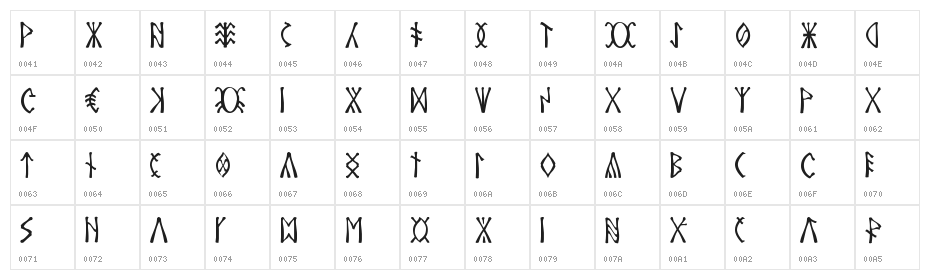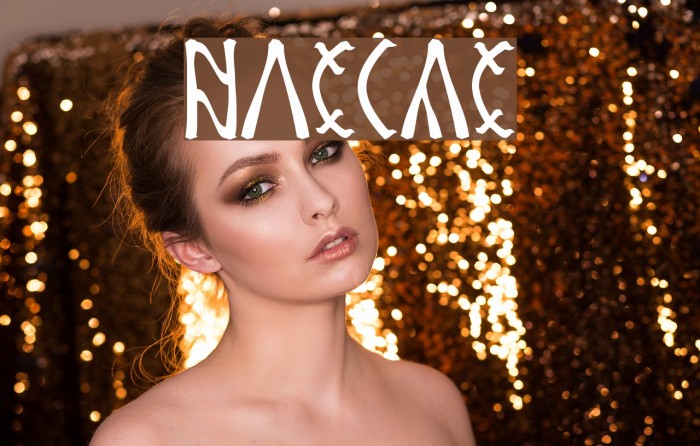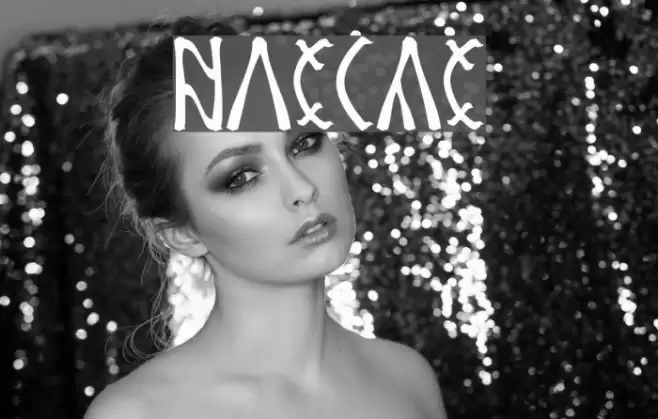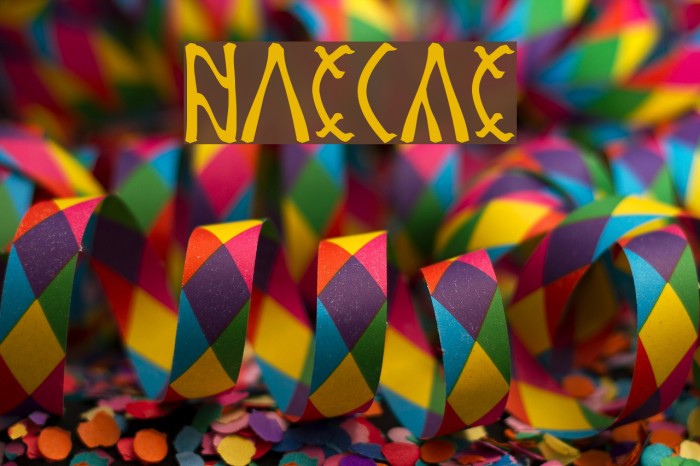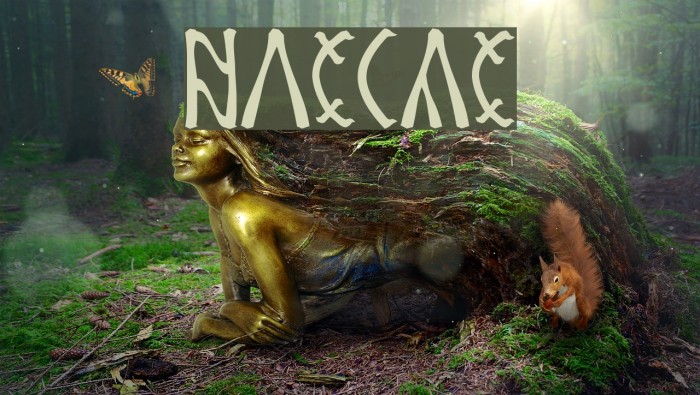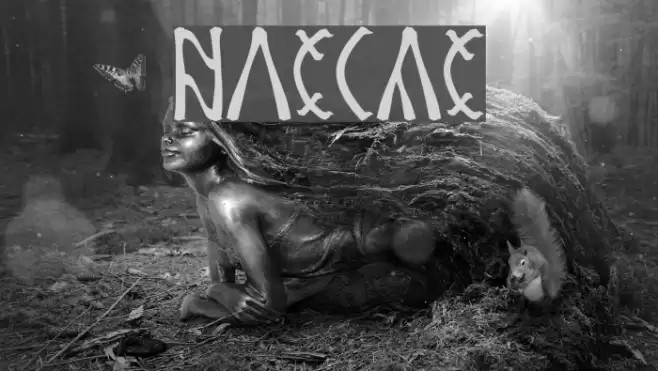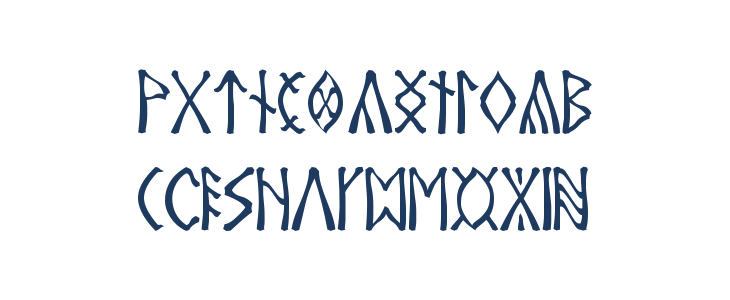
Csenge Font
Csenge Description
This font features a unique and intricate design reminiscent of ancient runic or symbolic scripts. Each character is crafted with bold strokes and angular lines, creating a sense of mystery and historical depth. The letters are highly stylized, with some characters incorporating symmetrical and mirrored elements. This design choice gives the font a distinctive and decorative appearance, making it suitable for projects that require a touch of antiquity or esoteric flair. The font's complexity and artistic nature make it stand out, offering a visually striking option for creative endeavors.
| Use Case | Logos, Posters, Book Covers |
| Proposed Projects | Ideal for fantasy-themed designs, historical recreations, game titles, or any project needing an ancient or mystical aesthetic. |